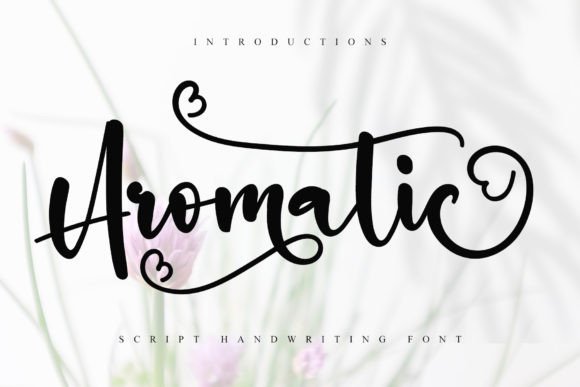
The Magical World of Aromatic Font: Elevate Your Designs with Elegance
I’ll never forget the moment I stumbled upon the perfect font for a client’s wedding invitation project. I had been searching for hours, trying out different fonts, but none seemed to capture the essence of the couple’s special day. That was until I discovered Aromatic Font – a game-changer in the world of handwritten fonts. In this article, I’ll share my experience with Aromatic Font, its features, and how to make the most of it in your designs.
A Personal Review: What I Love About Aromatic Font
Aromatic Font has become a staple in my design toolkit, and for good reason. Here are some of the things I love about it:
- ✨ Elegant and sophisticated: Aromatic Font adds a touch of luxury to any design project.
- ✅ Highly versatile: From Instagram quotes to calligraphy scripts for DIY projects, Aromatic Font is perfect for a wide range of applications.
- 💫 Unique character: The font’s handwritten style gives it a personal and human touch that sets it apart from more traditional fonts.
While Aromatic Font is an amazing addition to any design project, there are a few things to keep in mind:
- 🤔 Limited use in body text: Due to its elegant and cursive nature, Aromatic Font is best suited for headings, titles, or short paragraphs.
- ⚠️ Occasional kerning issues: As with any font, you may need to adjust kerning to ensure optimal spacing between letters.
The Story Behind Aromatic Font
Aromatic Font was created by a talented type designer who wanted to craft a font that would evoke the feeling of luxury and elegance. Inspired by traditional calligraphy and handwritten scripts, Aromatic Font was carefully designed to be both beautiful and versatile. The result is a font that adds a touch of sophistication to any design project.
| Font Name | Aromatic Font |
| What is Aromatic Font best used for? | Aromatic Font is perfect for headings, titles, and short paragraphs in design projects, such as wedding invitations, social media graphics, and luxury branding. |
| Is Aromatic Font available in different languages? | Aromatic Font may not support all languages, but it does include a range of glyphs and OpenType features to help with language-specific characters. |